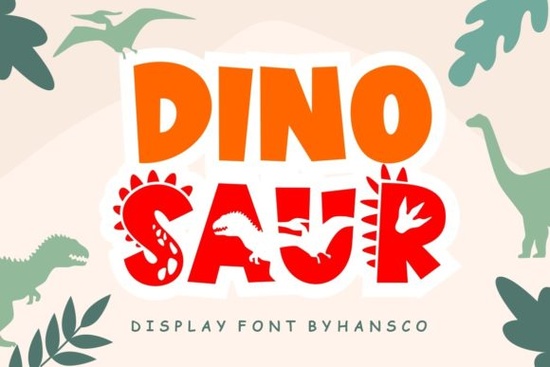
If you are working on a children's book, a playful poster, or a fun branding project, finding the right typography can make or break the design. The Dinosaur Font is a bold, friendly decorative typeface that features a unique dinosaur illustration integrated into every single character. This makes it an excellent choice for crafters, print-on-demand sellers, and graphic designers who need a highly visual, cartoon-style lettering option for kids' apparel, game packaging, or nursery wall art.
What kind of projects work best with illustrated lettering?
Illustrated typefaces shine when the goal is to grab attention and convey a sense of fun. Because each letter contains a detailed graphic, this style of typography is best used sparingly. It works beautifully for short phrases, logos, or main titles rather than long paragraphs of body text.
For print-on-demand sellers, this style is perfect for creating eye-catching children's t-shirts, tote bags, and sticker sheets. Small business owners designing packaging for toys or kids' snacks will also find that this playful aesthetic connects well with their target audience. If you are looking for more options in this specific style, you can easily browse other illustrated prehistoric typefaces to compare different artistic approaches and find the perfect fit for your next collection.
How do you pair a highly decorative font with other typefaces?
When your main title is heavily stylized, the golden rule of typography is to keep your secondary text clean and simple. Since the letters already have a lot of visual weight and intricate details, pairing them with another busy typeface will make your design look cluttered and hard to read.
Instead, choose a basic sans-serif or a clean, rounded geometric font for your subheadings and body copy. This creates a strong visual hierarchy. The decorative letters draw the eye in, while the simpler text delivers the necessary information clearly. If your project requires a softer, more romantic vibe for the secondary text, you might explore a script or handwritten alternative to balance the bold, chunky feel of the main title without competing for attention.
How can you adjust the spacing for better readability?
Because illustrated letters often have irregular shapes like a long tail on a capital T or a wide stance on an M the default spacing might look a bit uneven. Taking a few extra minutes to adjust the kerning and tracking will make your text look much more professional.